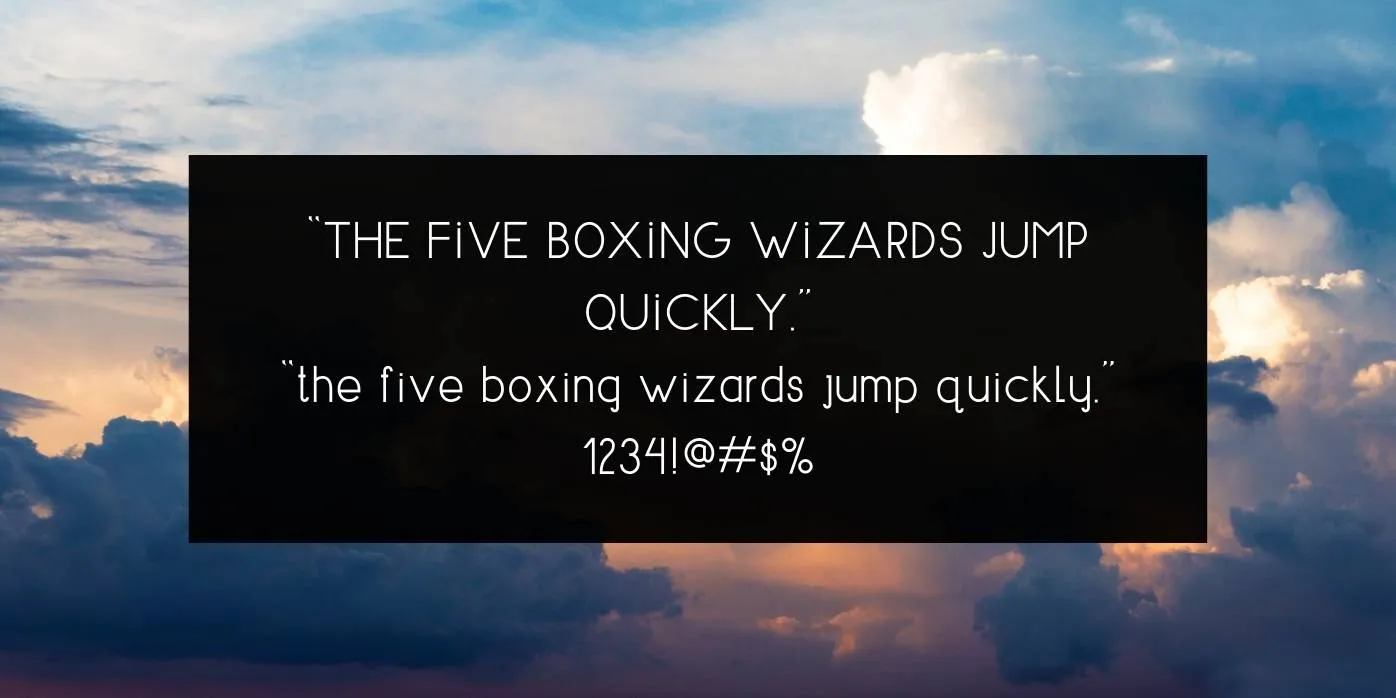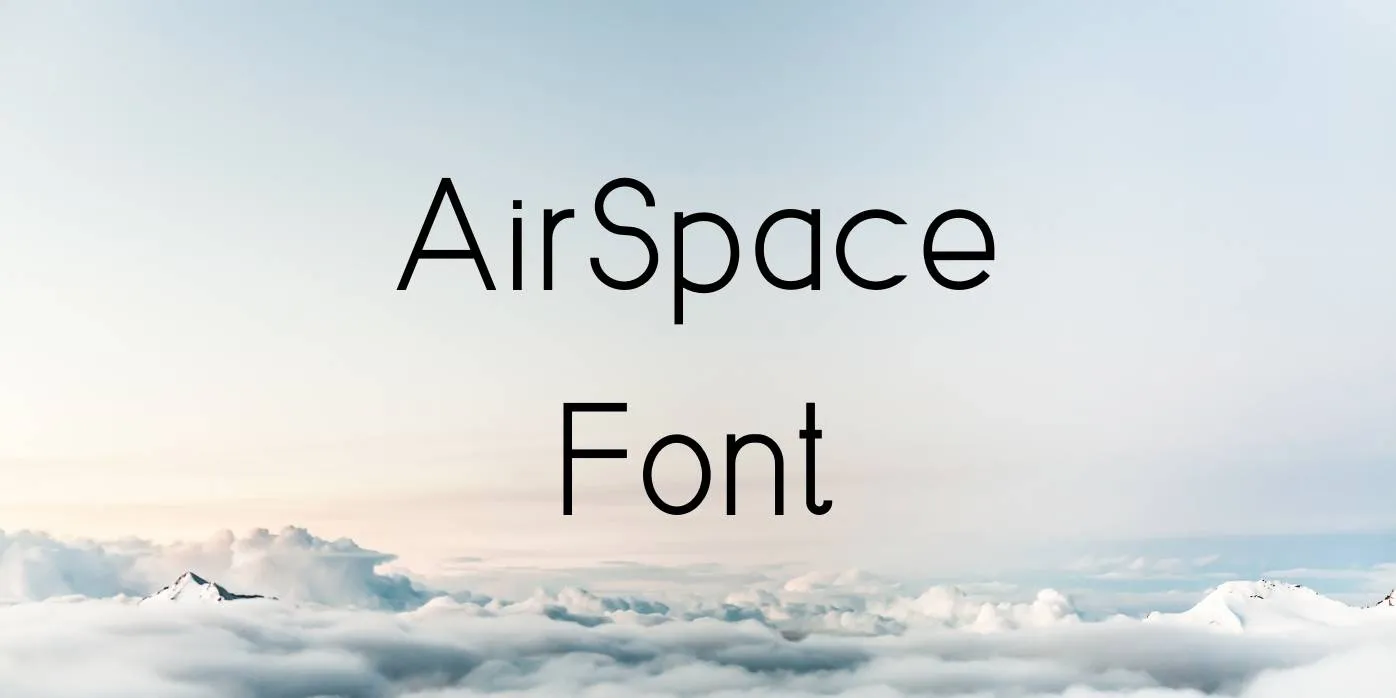
AirSpace Font
AirSpace Font is a sans-serif typeface designed by Paul Renner in 1927. The design is based on the geometric shapes that were popular at the time and features a simple, clean design. The font was first released by the German foundry D. Stempel AG and has been widely used in both print and digital media.
This is a popular choice for headlines and body text and has been used by many major brands. Moreover, you can also try gidole Font for your logos and other typography designs as well. This Font is available in both regular and bold weights and can be downloaded for free from many websites. The glyph of this font has wide apertures and a tall x-height, which makes it highly legible.